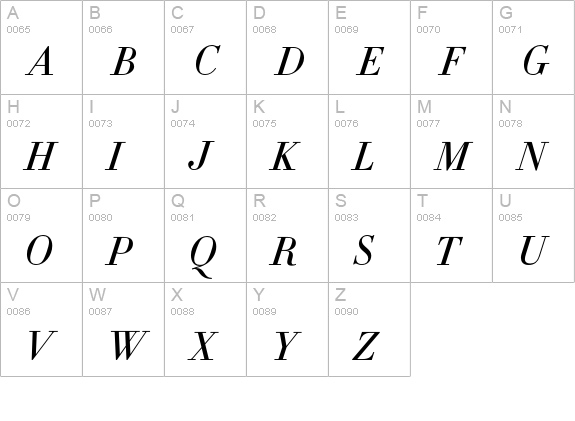
Didot-HTF-L06-Light-Ital Font Details
Didot-HTF-L06-Light-Ital is a refined, elegant variant in the Didot typeface family \xE2\x80\x94 well suited to elegant body text, refined sub-headings, and luxury branding.
Didot-HTF-L06-Light-Ital is a stunning and elegant typeface that exudes sophistication and refinement. With its delicate serifs and graceful curves, this font is perfect for adding a touch of class to any design project. Whether you're working on a wedding invitation, a high-end brand logo, or a luxury magazine layout, Didot-HTF-L06-Light-Ital will elevate your work to a new level of elegance. What's even better is that this exquisite font is available for free download at FontsMarket.com. Yes, you read that right - you can enhance your designs with the beauty of Didot-HTF-L06-Light-Ital without spending a dime. So why wait? Download this gorgeous typeface today and let your creativity shine with this timeless classic.